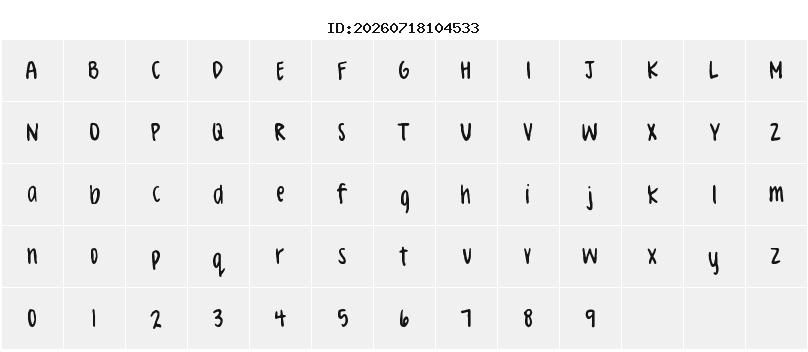
• Font Name: Celeste Hand
About Celeste Hand.ttf
Celeste Hand.ttf is a modern, elegant sans-serif font designed for ultimate readability and visual harmony. Perfect for branding, headlines, web design, and print materials.